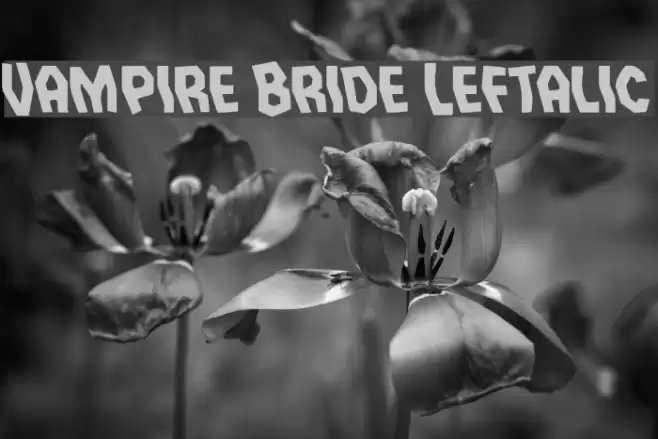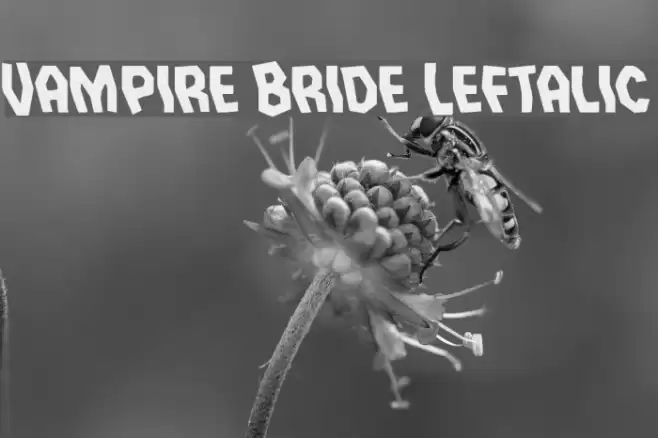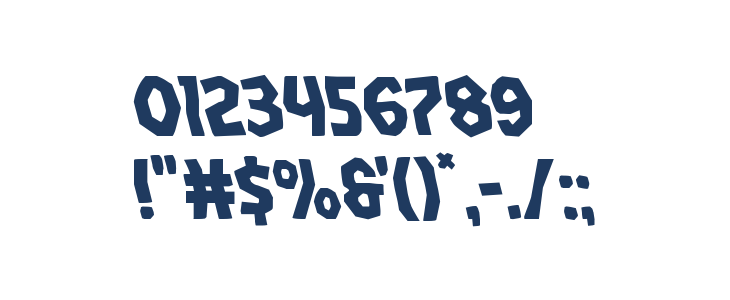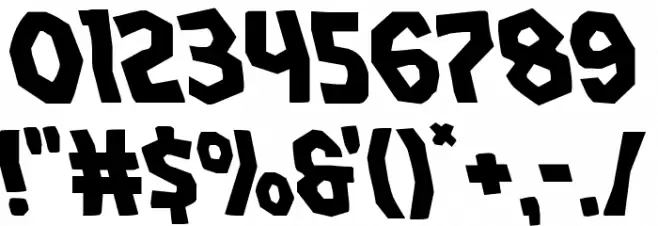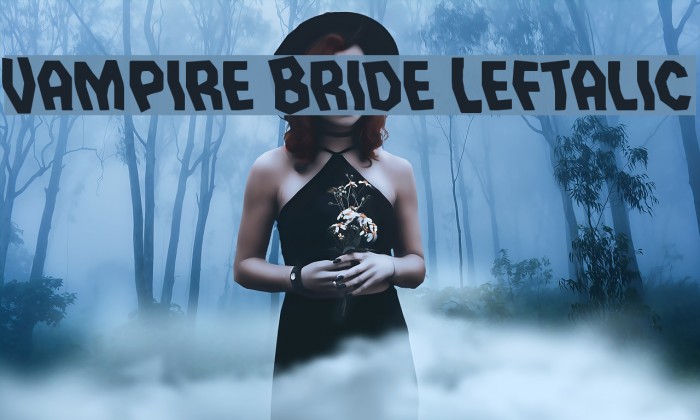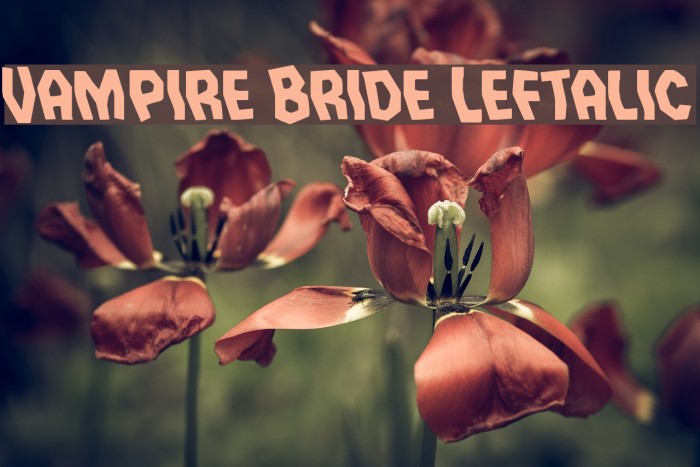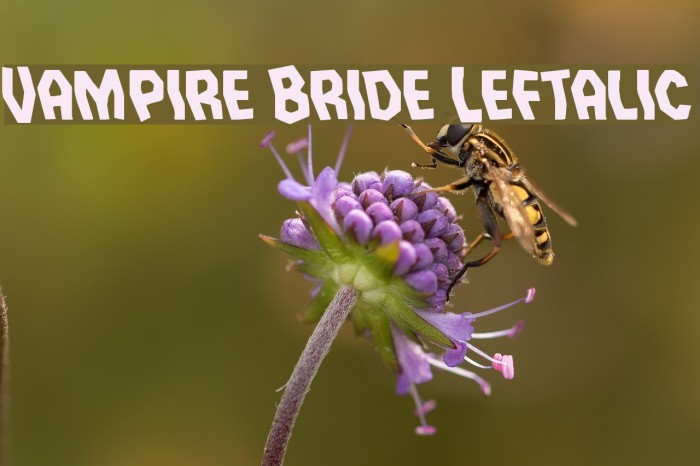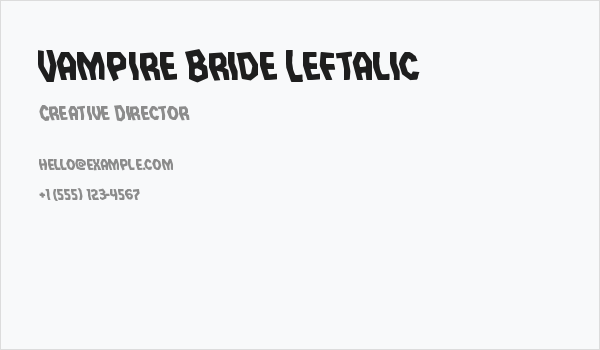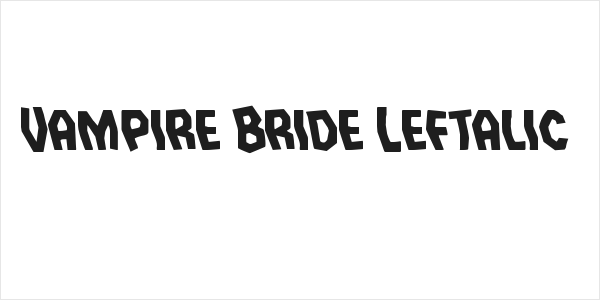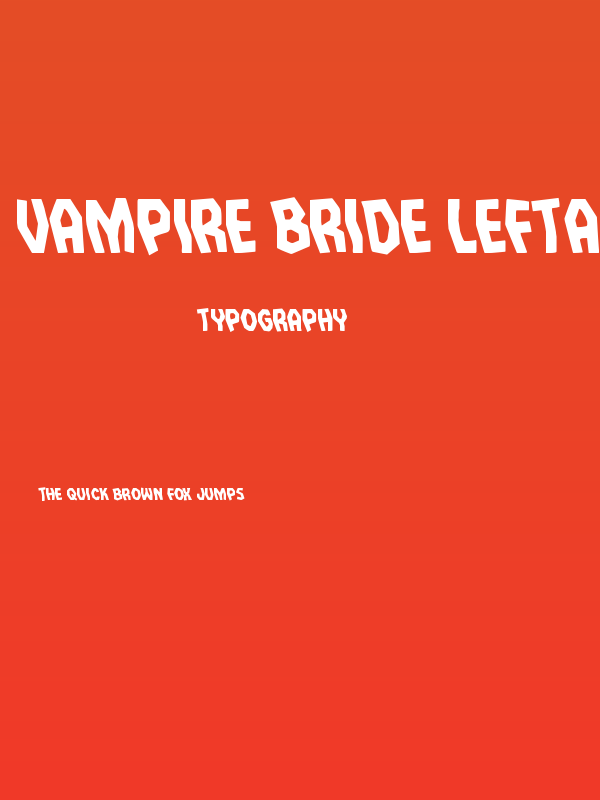
Vampire Bride Leftalic Font
Vampire Bride Leftalic Description
This font features a bold and angular design, characterized by its sharp, jagged edges and irregular shapes. The letters are heavily stylized, giving off a gothic and edgy vibe, reminiscent of horror or Halloween themes. The uppercase and lowercase letters maintain a consistent style, with a slightly condensed appearance. The numbers and special characters follow the same aesthetic, ensuring uniformity across all glyphs. The font's unique style makes it stand out, perfect for projects that require a dramatic and eye-catching typeface.
A bold, angular font with a gothic, horror-inspired style from Horror fonts.
- Proposed Projects: Ideal for Halloween-themed designs, horror movie posters, video game titles, and any project needing a dramatic, spooky touch.
- Overall Style: Gothic, Edgy, Dramatic